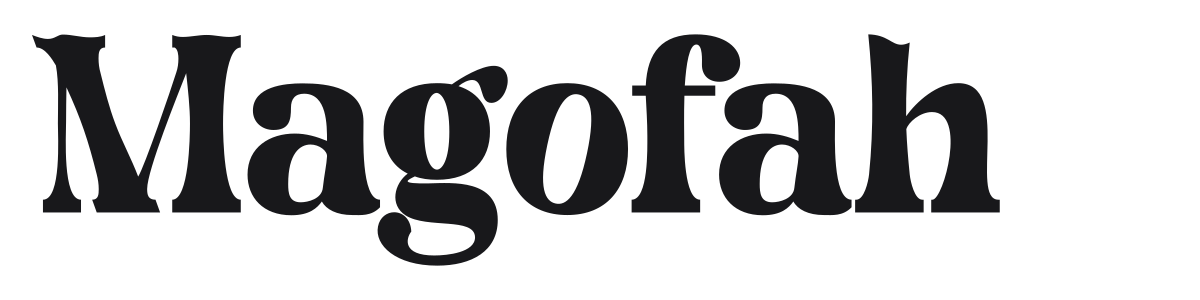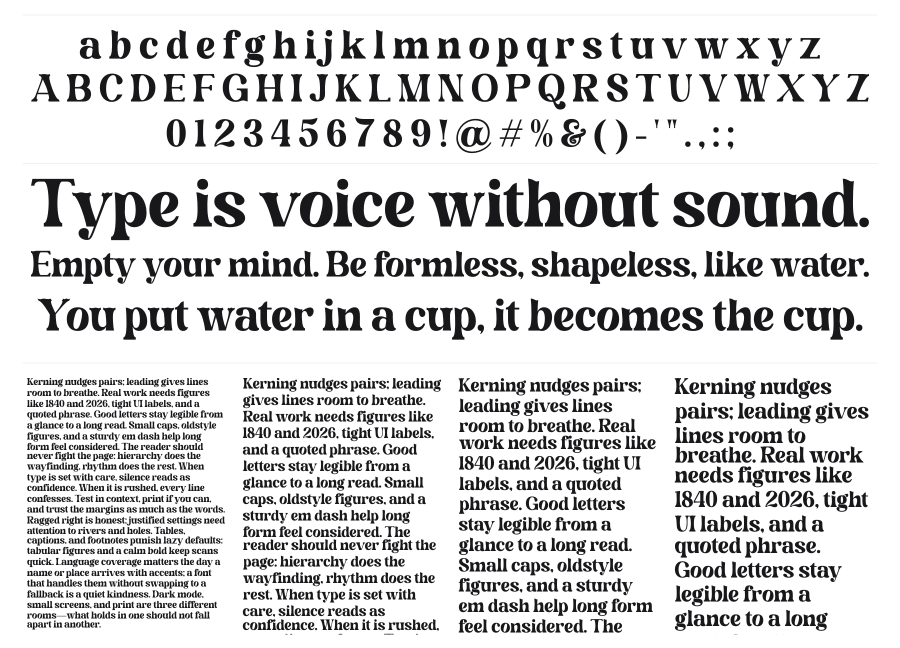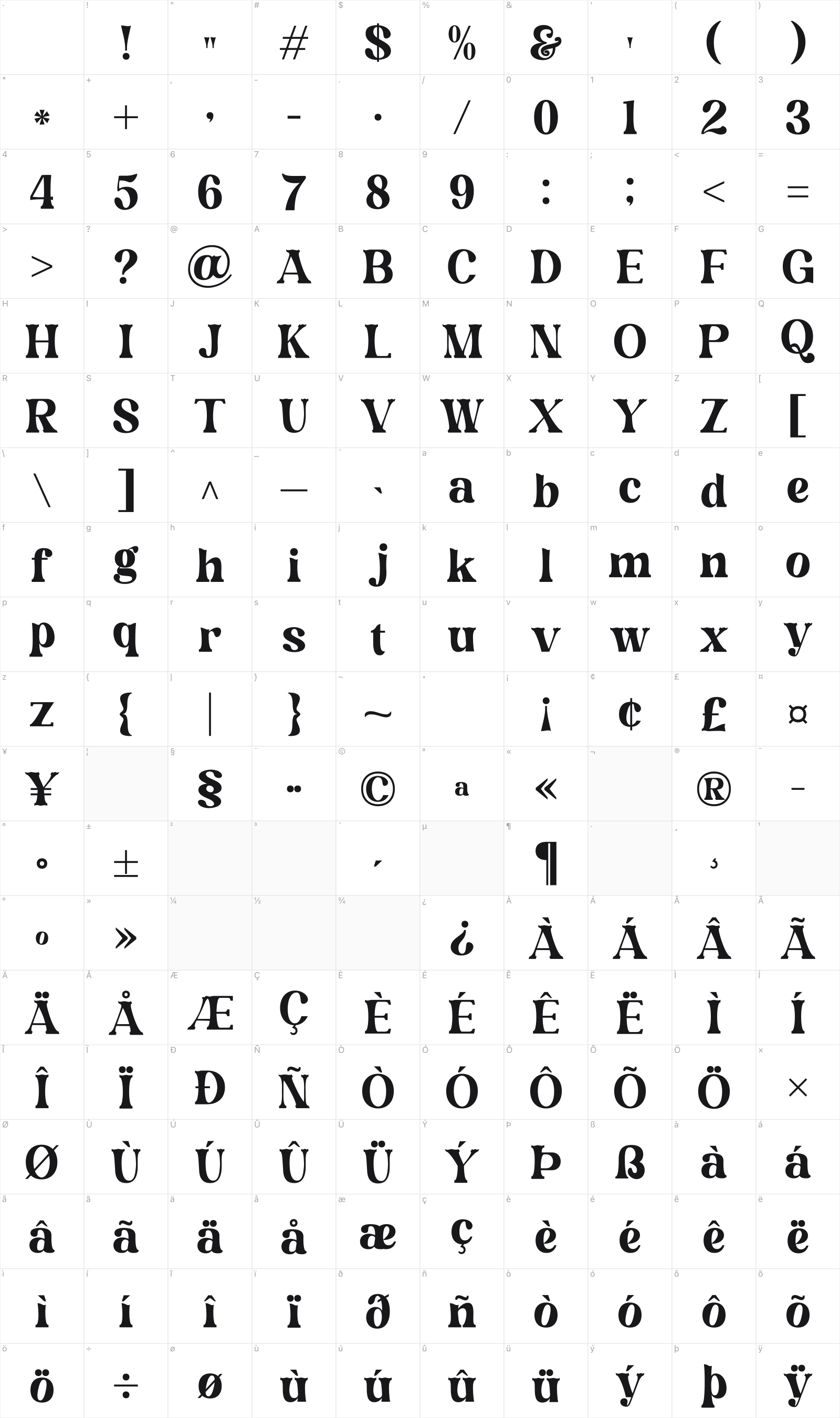
Magofah
Magofah is a heavy modern serif with striking stroke contrast and wide, confident proportions. Its thick stems and sharp hairline thins draw from the didone tradition, giving it a commanding presence at headline sizes. The kind of face that works for magazine covers, luxury branding, or anywhere bold editorial impact is needed.